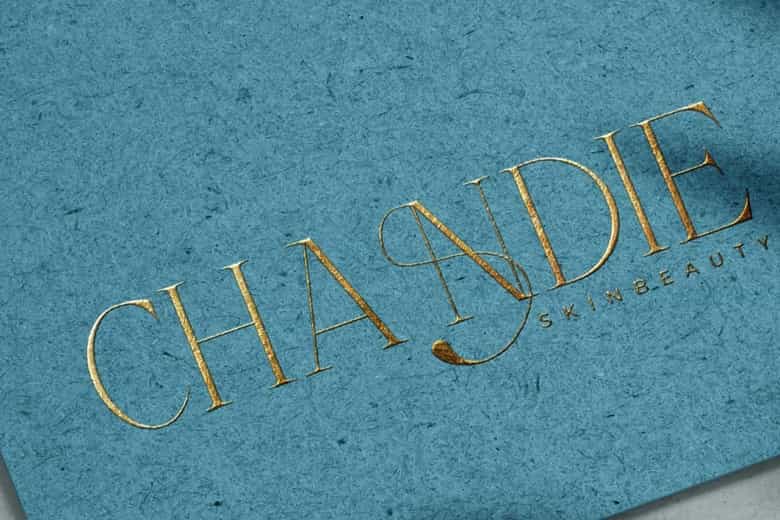
Bluermode is an elegant and beautiful serif font that primarily used to create a display font that has a sense of antique and classic appeal. With its unique mixture, it adds a touch of class to one’s work to make it perfect for app view, blog, brand logo, brochure, cover, greeting card, headlines, logos, magazines, packaging design, posters, watermark, website, wedding invitation or even quotations and more.